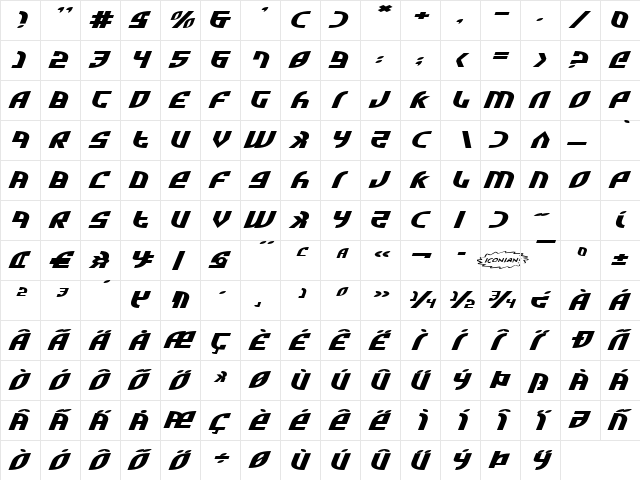
Zone Rider Ultra ExpItalic Ultra ExpItalic
Design Context for Zone Rider Ultra ExpItalic Typeface
Zone Rider Ultra ExpItalic is a composed and adaptable typeface that performs quietly and consistently across a wide range of design contexts. The slanted form adds forward momentum and visual energy.